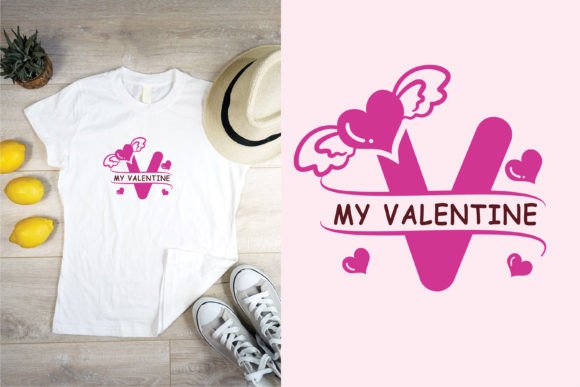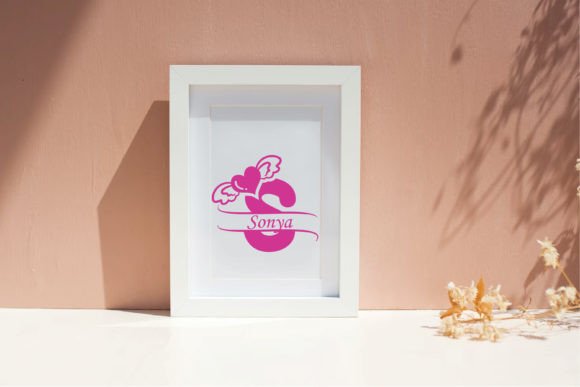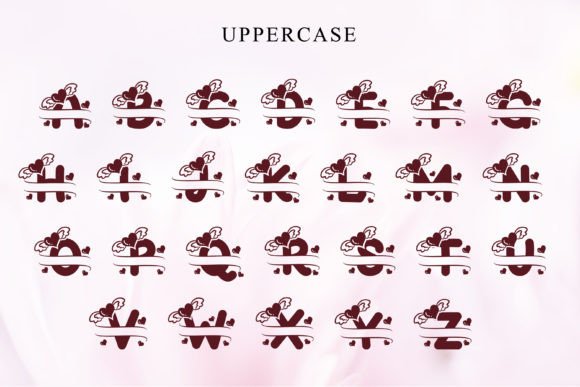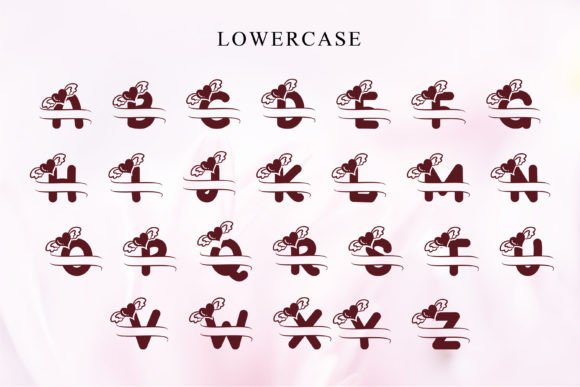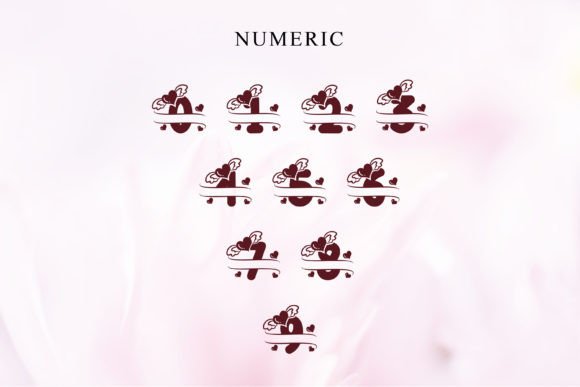
Introduction to Love Wing Valentine Font
As a designer, there’s no shortage of creative moments that spark inspiration. It could be a fleeting glimpse of a beautiful sunset, a fascinating conversation with a friend, or stumbling upon a unique design resource that sets your imagination ablaze. For many of us, Valentine’s Day is a time to tap into our creative side and express love and affection through art, writing, and design. This is where the Love Wing Valentine Font comes in – a delightful and charming font that’s sure to make your heart skip a beat.
This adorable font is perfect for designers looking to add a touch of whimsy to their projects. With its cute and fun design, it’s suitable for a wide range of applications, from social media graphics to greeting cards and more. Whether you’re working on a free download or a high-quality design project, the Love Wing Valentine Font is an excellent addition to your design resource library.
Key Features of Love Wing Valentine Font
- Unique and elegant design, perfect for creative projects and romantic themes
- High-quality font with a transparent background, ideal for use on various backgrounds and designs
- Supports various languages, including English, making it a versatile design tool
- Features a clear and readable font size, suitable for use in various design applications, from posters to invitations
Honest Review: Love Wing Valentine Font
I recently had the chance to work with the Love Wing Valentine Font for a creative project, and I must say it’s a lovely addition to any design. The font itself is free to download, making it an excellent resource for designers on a budget.
- High-quality design that captures the essence of love and Valentine’s Day
- Transparent background, making it easy to integrate into various design elements
The Love Wing Valentine Font is a great choice for designers working on projects that require a touch of romance and whimsy. The design is playful yet elegant, making it perfect for cards, invitations, and other celebratory materials.
- May not be suitable for formal or professional projects
- Does not come with a wide range of variations or styles
- Some users may find the design too simplistic or childish
Overall, I think the Love Wing Valentine Font is a great design resource for those working on creative projects. While it may have some limitations, its unique design and free availability make it a great choice for designers looking for a touch of romance in their work.
How to Use Love Wing Valentine Font
To get the most out of the Love Wing Valentine Font, experiment with different font sizes, colors, and combinations. You can also pair it with other fonts to create a unique and eye-catching design.
The Love Wing Valentine Font is perfect for Valentine’s Day-themed designs, such as:
- Valentine’s Day cards and invitations
- Love-themed social media graphics
- Wedding invitations and decorations
Pacifico Font is a modern script font with a beautiful, flowing design. It’s perfect for designers who want to create a sophisticated, high-end look for their creative project. When to use: luxury brands, elegant invitations, and other high-end designs. Comparison to Love Wing Valentine Font: Pacifico Font is more formal and elegant, while Love Wing Valentine Font is more playful and casual.